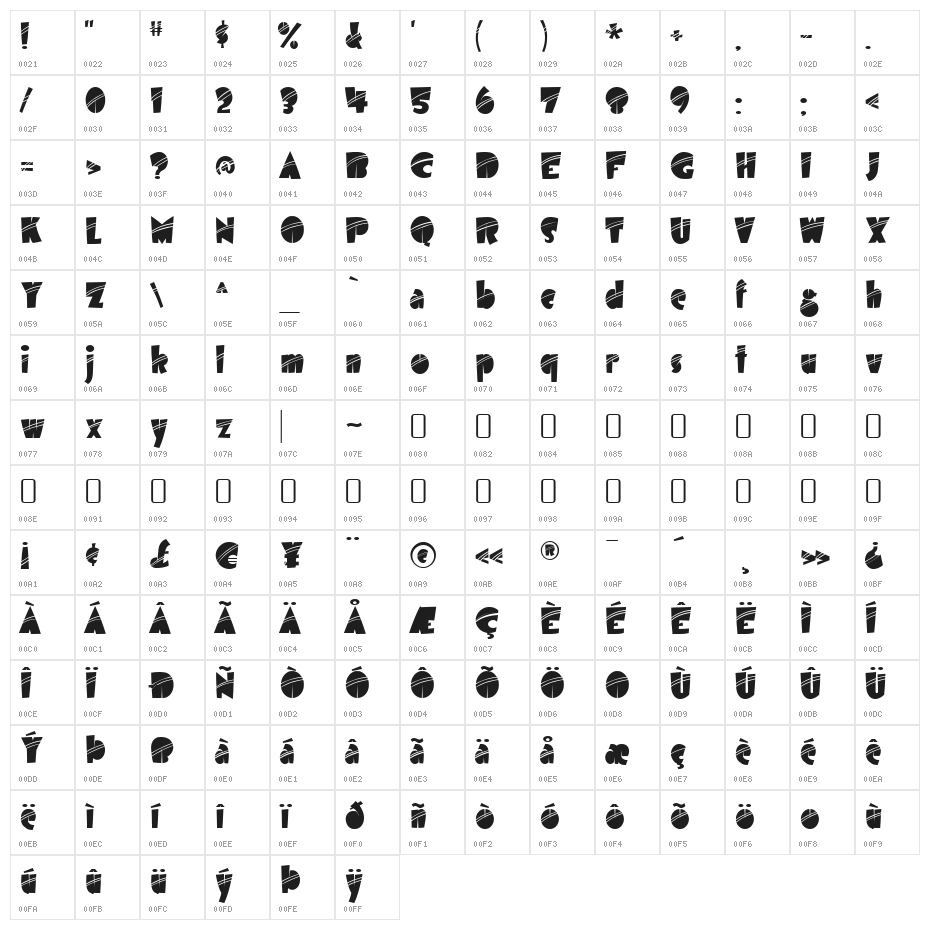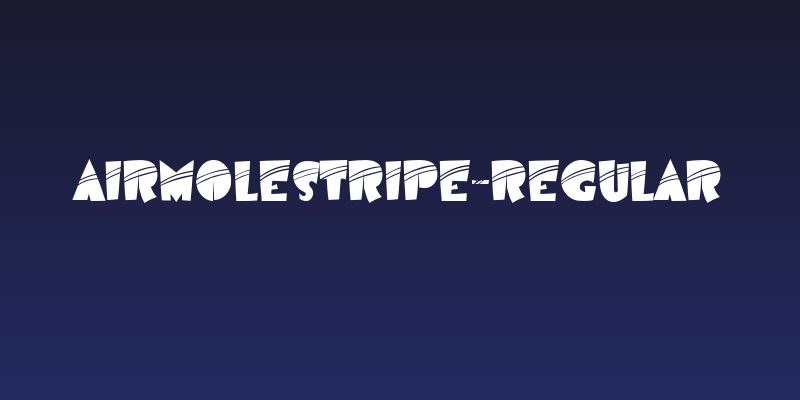
AirmoleStripe-Regular Font
AirmoleStripe-Regular Description
This font features a bold and dynamic style with a distinctive striped pattern running through each character. The letters are wide and have a playful, geometric appearance, making them stand out with a strong visual impact. The uppercase and lowercase letters maintain a consistent design, with sharp angles and a modern aesthetic. Numbers and special characters follow the same bold and decorative style, ensuring uniformity across all elements. The font's unique design makes it suitable for eye-catching displays and creative projects.
| Proposed Projects | Ideal for posters, logos, branding, and any project requiring a bold and distinctive typeface. |